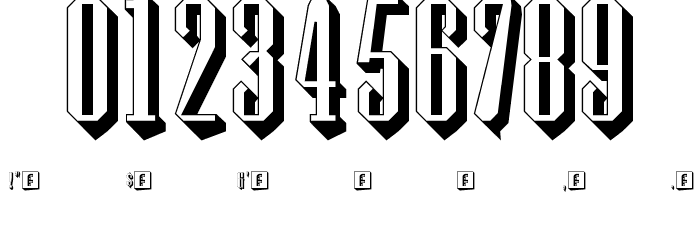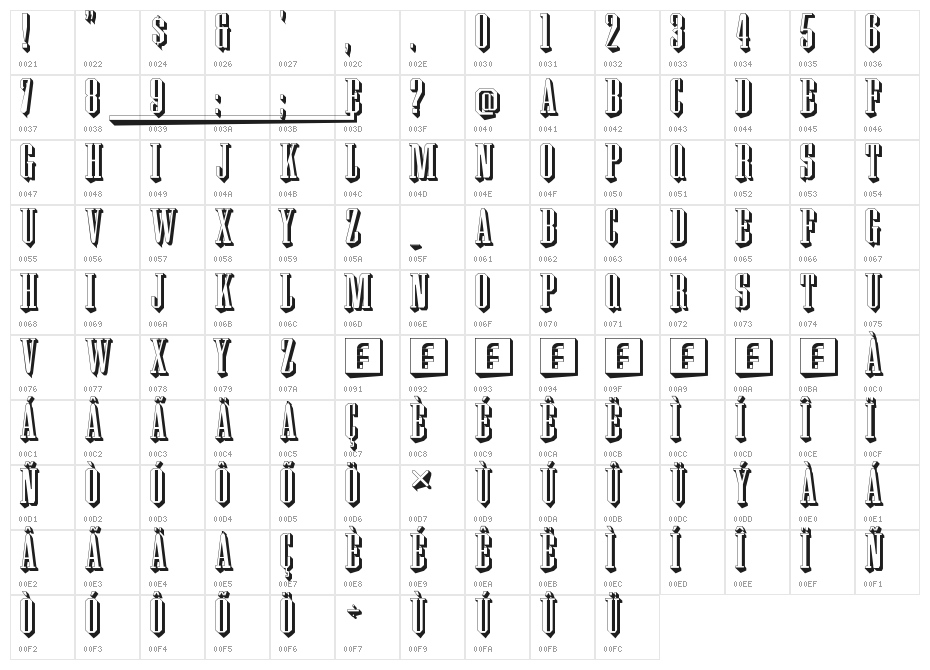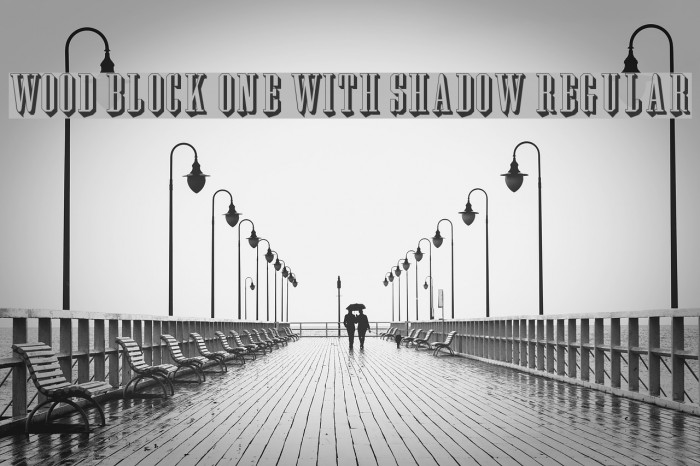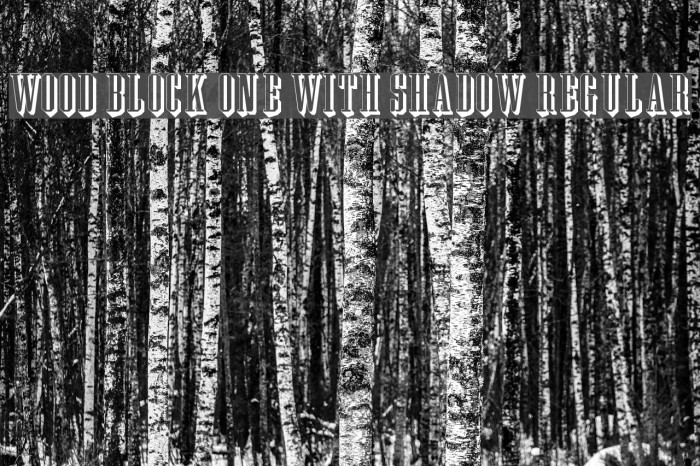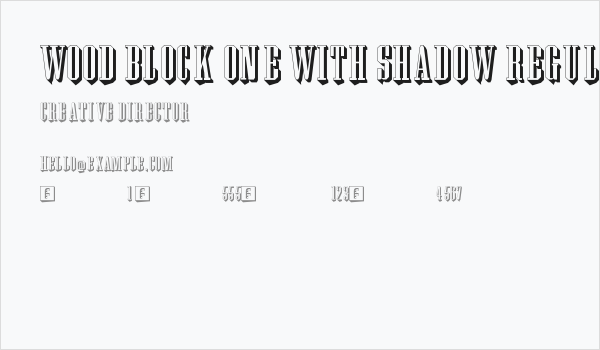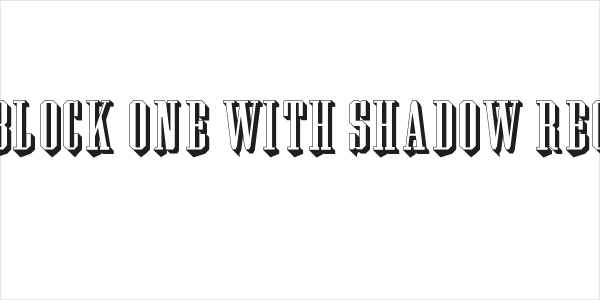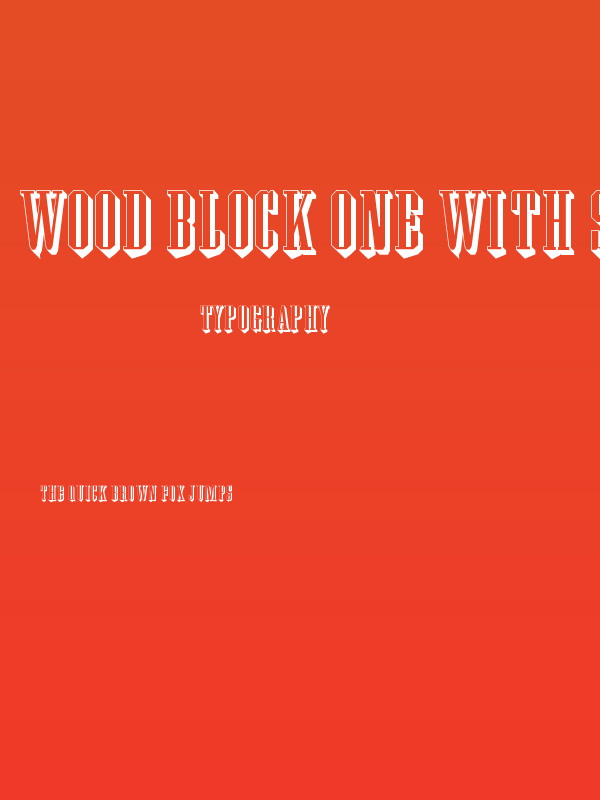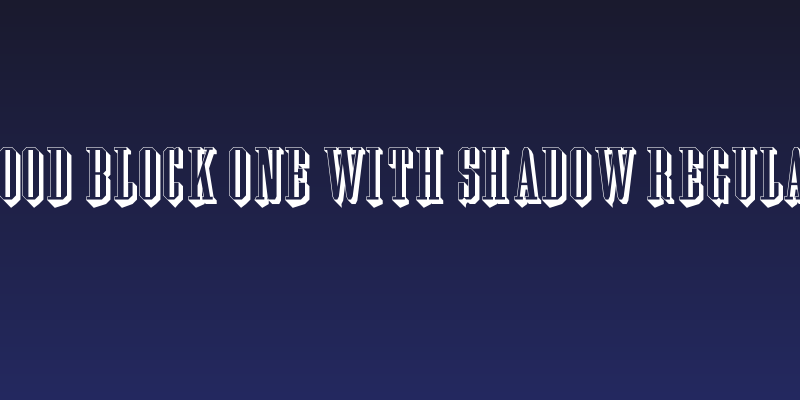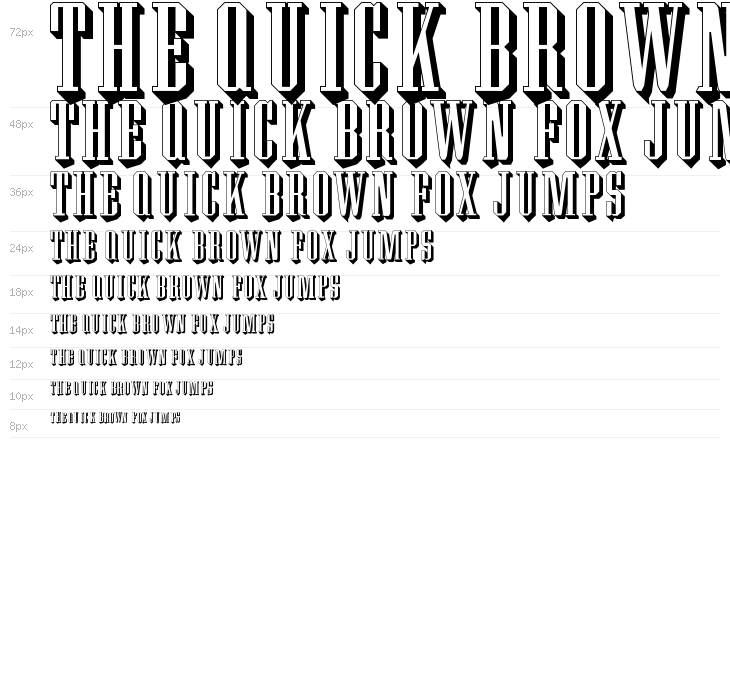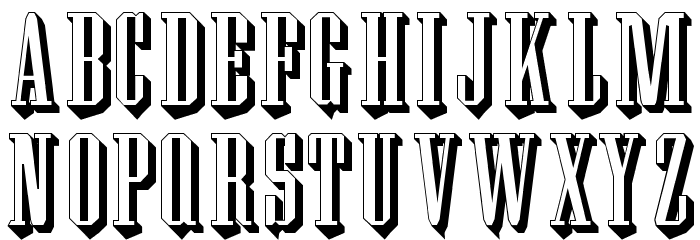
Wood Block One With Shadow Regular Font
Wood Block One With Shadow Regular Description
This font features a bold, three-dimensional appearance with a distinct shadow effect that gives it a striking and impactful look. The characters are tall and narrow, with sharp, angular serifs that add a touch of elegance and sophistication. The shadowing creates a sense of depth, making the letters appear to stand out from the page. This style is reminiscent of vintage woodblock printing, offering a classic yet bold aesthetic. The uppercase and lowercase letters maintain a consistent style, while the numerals and special characters complement the overall design. The font's unique shadow effect makes it ideal for creating eye-catching headlines and titles.
| Proposed Projects | Ideal for posters, signage, branding, and any project requiring a bold, vintage look. |